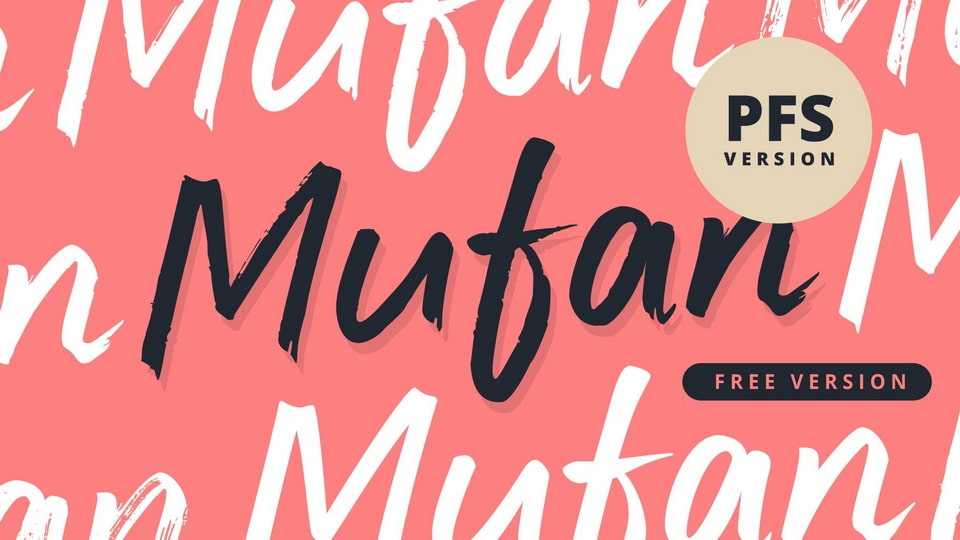
Download Mufan font, a hand painted brush typeface with a simple concept that wants to emphasize readability and can be used in almost anything. Mufan PFS comes with basic glyphs and has been specially designed to work well in uppercase only, lowercase only, or in sentences, and titles.
Designer: Dexsar Harry Anugrah